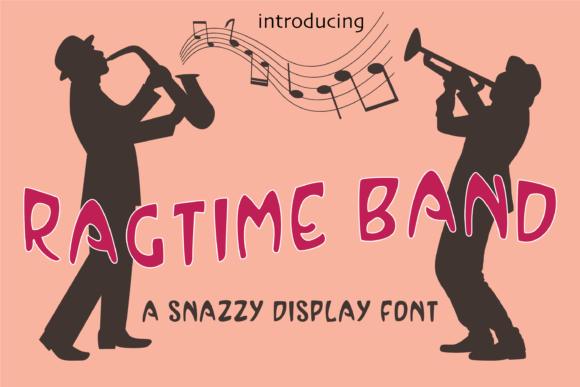
Ragtime Band Font: A Unique Tool for Creative Expression
The Ragtime Band font is more than just a typographic choice—it's a statement. With its playful, rhythmic design, it brings a sense of nostalgia and energy to any project. Whether you're crafting a hand-written letter, designing a logo, or creating a custom invitation, Ragtime Band offers a distinctive look that stands out in a sea of standard fonts.
What Makes Ragtime Band Special?
Ragtime Band is an original display font that draws inspiration from the musical era of ragtime. Its design features bold, flowing strokes and a whimsical character set that evokes the spirit of early 20th-century music. Unlike traditional serif or sans-serif fonts, Ragtime Band feels alive—each letter has a unique personality, making it ideal for projects that need to capture attention and emotion.
This font isn't just visually striking; it's also versatile. It works well with both uppercase and lowercase letters, and its decorative elements make it perfect for headlines, titles, and creative branding. The font’s rhythm and flow can be especially effective when used in conjunction with other design elements, adding depth and character to your visual storytelling.
Where Can You Use Ragtime Band?
One of the most compelling aspects of Ragtime Band is its broad range of applications. Here are several real-world scenarios where this font shines:
- Letterheads and Stationery: Add a touch of charm and uniqueness to your business cards, envelopes, or company stationery. Ragtime Band can transform a simple document into a piece of art.
- Event Invitations: Whether it's a wedding, birthday, or anniversary, using Ragtime Band on your invitations can set the tone for a memorable event. Its playful nature makes it especially well-suited for themed parties or retro-themed celebrations.
- Product Packaging: For small businesses or artisans, Ragtime Band can help create eye-catching packaging that reflects the brand’s personality. It works particularly well with handmade goods, vintage-inspired products, and boutique-style items.
- Blog Headers and Social Media: If you run a blog or manage social media accounts, consider using Ragtime Band for your headers or post titles. It adds a creative edge and helps your content stand out in a crowded digital space.
- Custom Merchandise: From t-shirts to mugs, Ragtime Band can be used to personalize everyday items. This makes it a great choice for independent designers, local artists, or even DIY enthusiasts looking to create one-of-a-kind pieces.
Who Benefits Most from Using Ragtime Band?
Ragtime Band appeals to a wide audience, but certain groups may find it particularly valuable:
- Creative Professionals: Graphic designers, web developers, and branding specialists often seek fonts that offer both aesthetic appeal and functional versatility. Ragtime Band fits this need perfectly, offering a fresh alternative to overused typefaces.
- Entrepreneurs and Small Business Owners: For those building their brand identity, Ragtime Band can help differentiate their business in a competitive market. Its unique style can become a signature element of their visual presence.
- Artists and Crafters: Whether you're working with paper, fabric, or digital media, Ragtime Band provides a creative tool that can elevate your work. It's especially useful for those who enjoy mixing typography with other artistic elements.
- Students and Educators: Teachers and students alike can benefit from using Ragtime Band in educational materials, presentations, or classroom projects. It can add a fun and engaging element to learning resources.
Considerations Before Using Ragtime Band
While Ragtime Band is a powerful tool, it’s important to consider a few factors before incorporating it into your designs:
First, Ragtime Band is best suited for display purposes, not for long blocks of text. Its stylized design can make it difficult to read in large quantities, so it’s recommended for use in headings, logos, or short phrases.
Second, ensure that the font is properly licensed for your intended use. Some fonts are free for personal use, while others require purchase or subscription for commercial applications. Always check the licensing terms before using Ragtime Band in a professional or public setting.
Finally, consider how the font aligns with your overall design goals. While Ragtime Band offers a unique look, it may not always complement every color scheme or layout. Experiment with different combinations to find what works best for your project.
Strengths and Limitations
Ragtime Band has several strengths that make it a standout font:
- Visual Impact: Its bold, rhythmic design immediately captures attention and creates a memorable impression.
- Uniqueness: In a world of generic fonts, Ragtime Band offers a refreshing alternative that stands out.
- Flexibility: It can be adapted to a variety of industries and uses, from creative design to branding and marketing.
However, there are also some limitations to keep in mind:
- Readability Issues: As mentioned earlier, Ragtime Band is not ideal for long passages of text due to its stylized appearance.
- Compatibility: Not all platforms or software may support Ragtime Band seamlessly, especially if it’s a less common or newer font.
- Design Balance: To maintain a cohesive look, it’s important to pair Ragtime Band with complementary fonts for body text or supporting elements.
Ultimately, Ragtime Band is a font that encourages creativity and individuality. By understanding its strengths and limitations, you can make informed decisions about when and how to use it effectively in your projects.